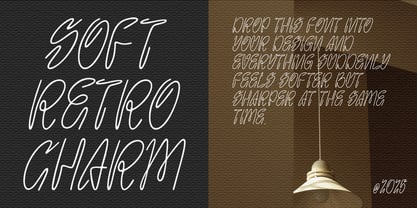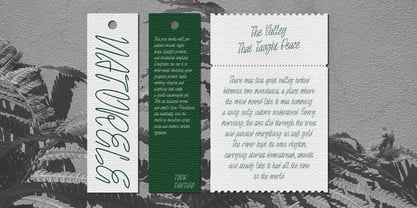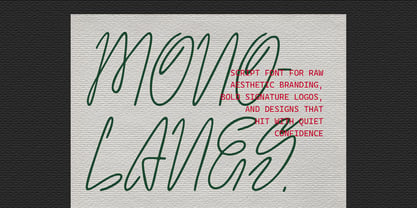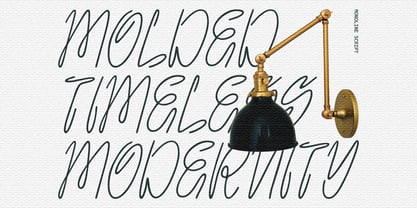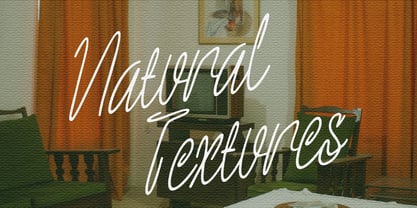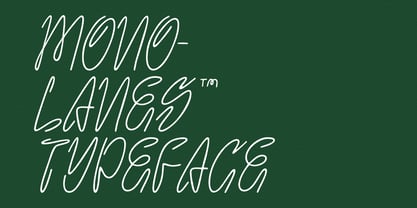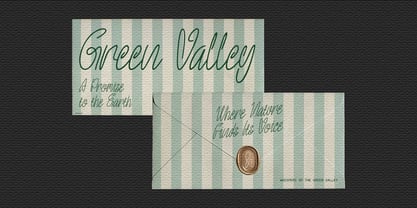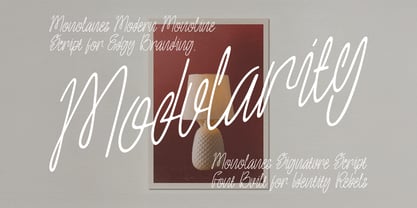
ATP Mono Lanes
by Typeparties
The ATP Mono Lanes Font Family was designed by Thufail Al ghifary and published by Typeparties. ATP Mono Lanes contains 1 styles. More about this family
Monolanes is a clean monoline script font characterized by its soft, handwritten flow that exudes elegance and ease. The thin, consistent strokes create a smooth rhythm, making it an excellent choice for logo design, branding projects, signature marks, product packaging, and visually appealing social media posts. Monolanes adds a modern handwritten touch that feels personal and stylish while ensuring readability, making it perfect for creators seeking a refined yet natural aesthetic.
Designers: Thufail Al ghifary
Foundry: Typeparties